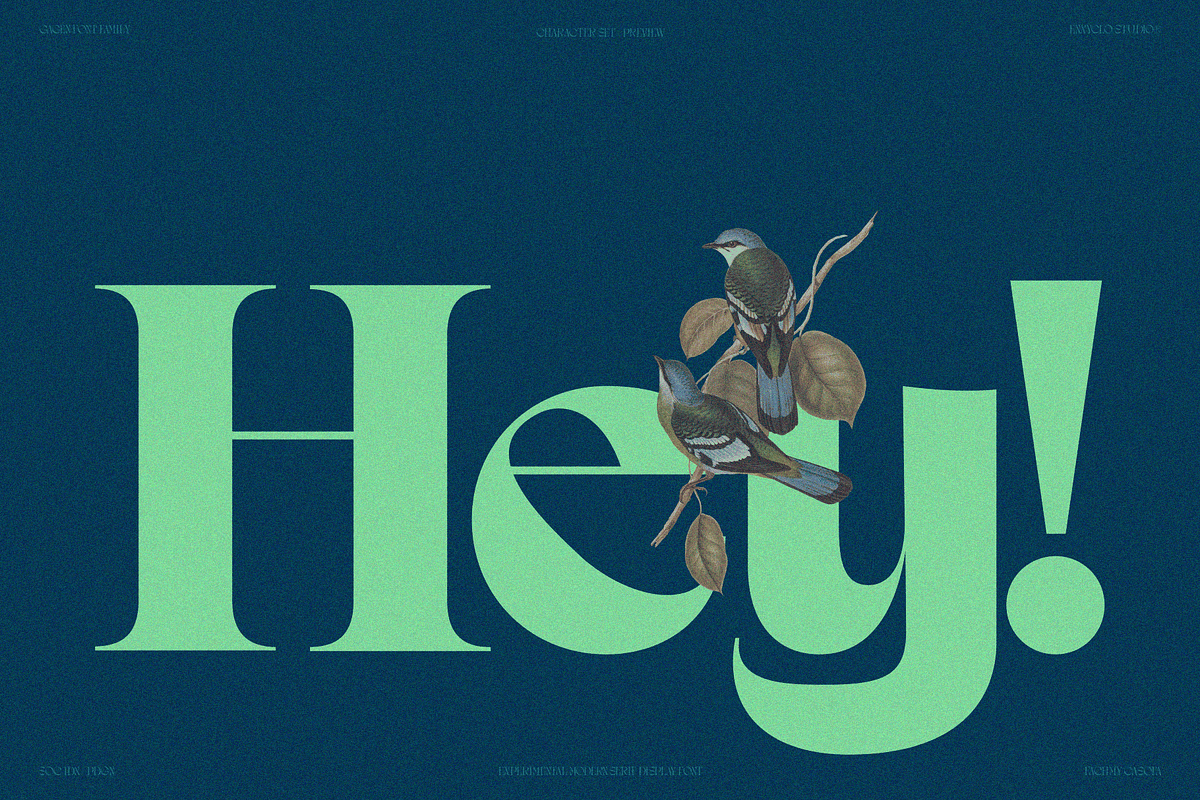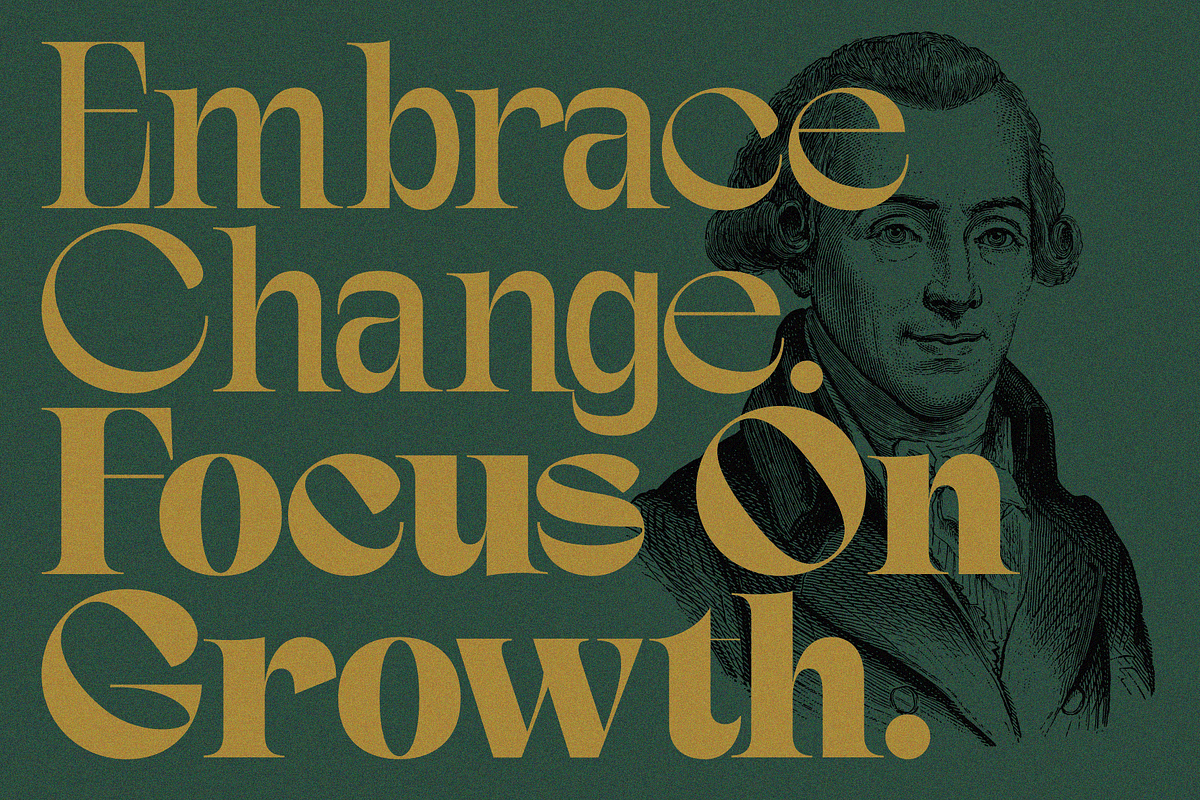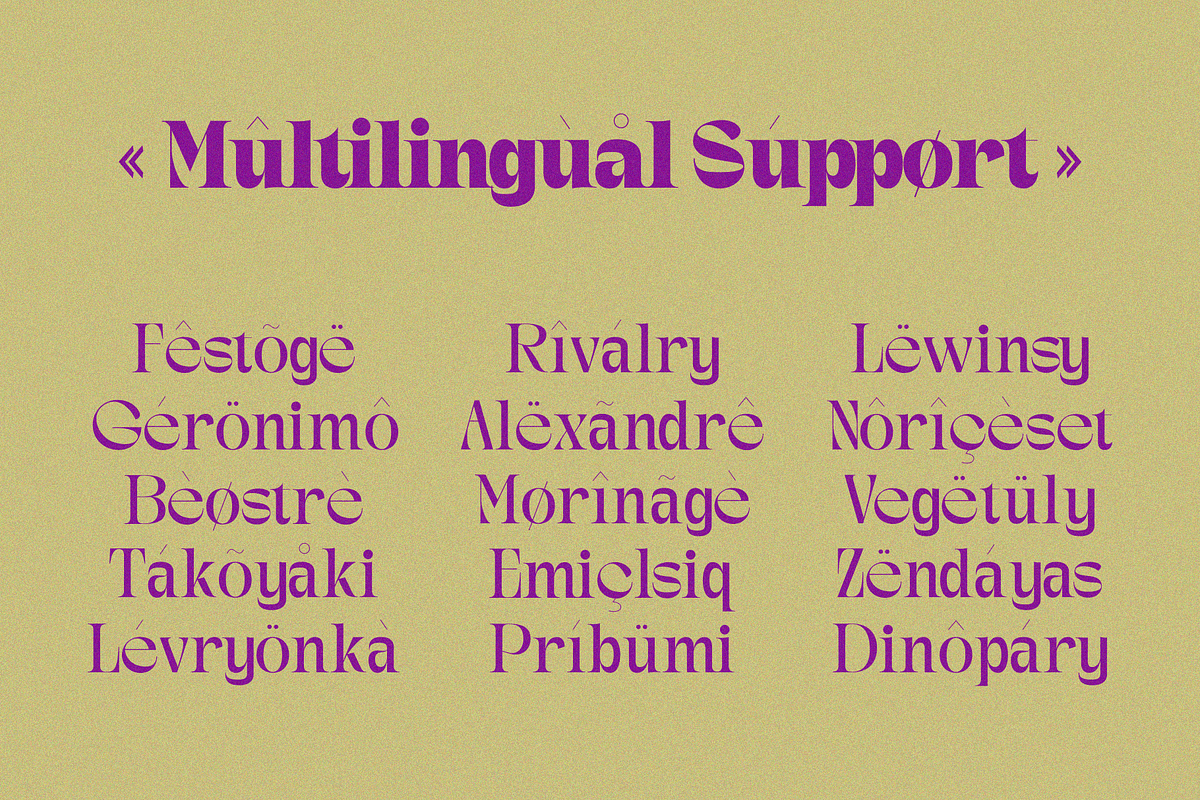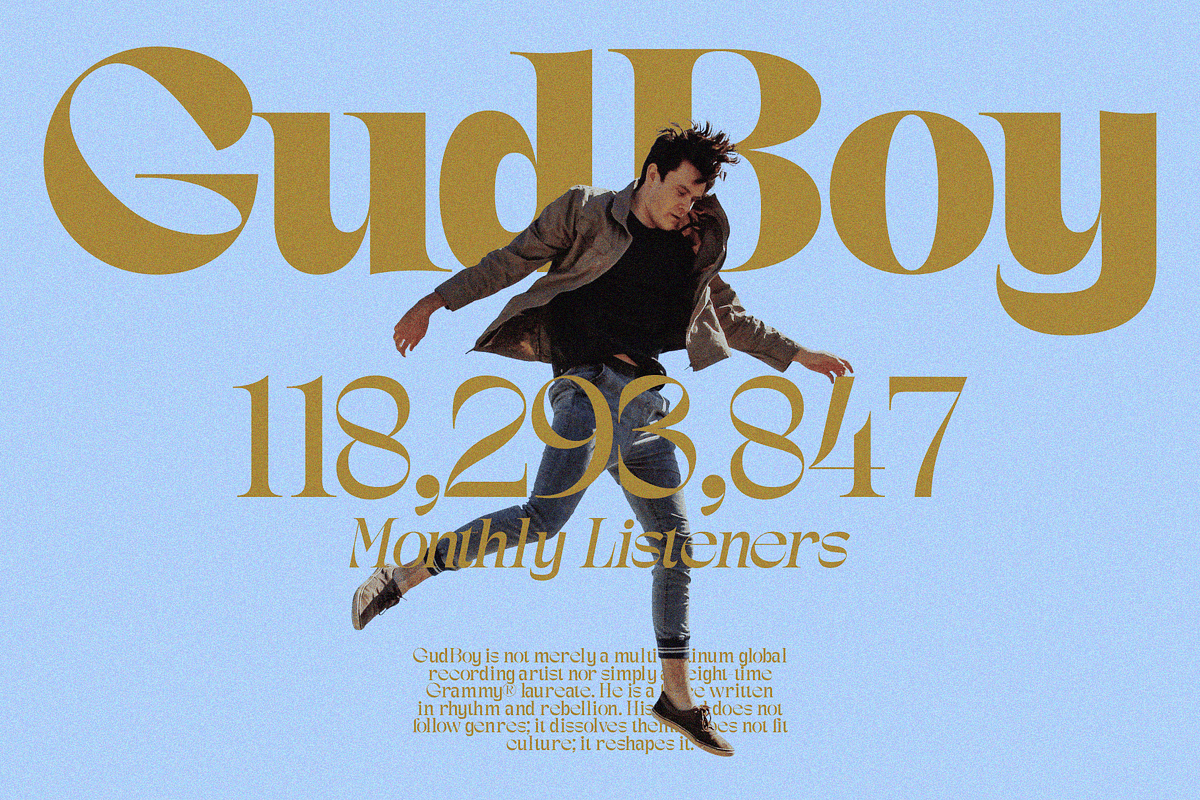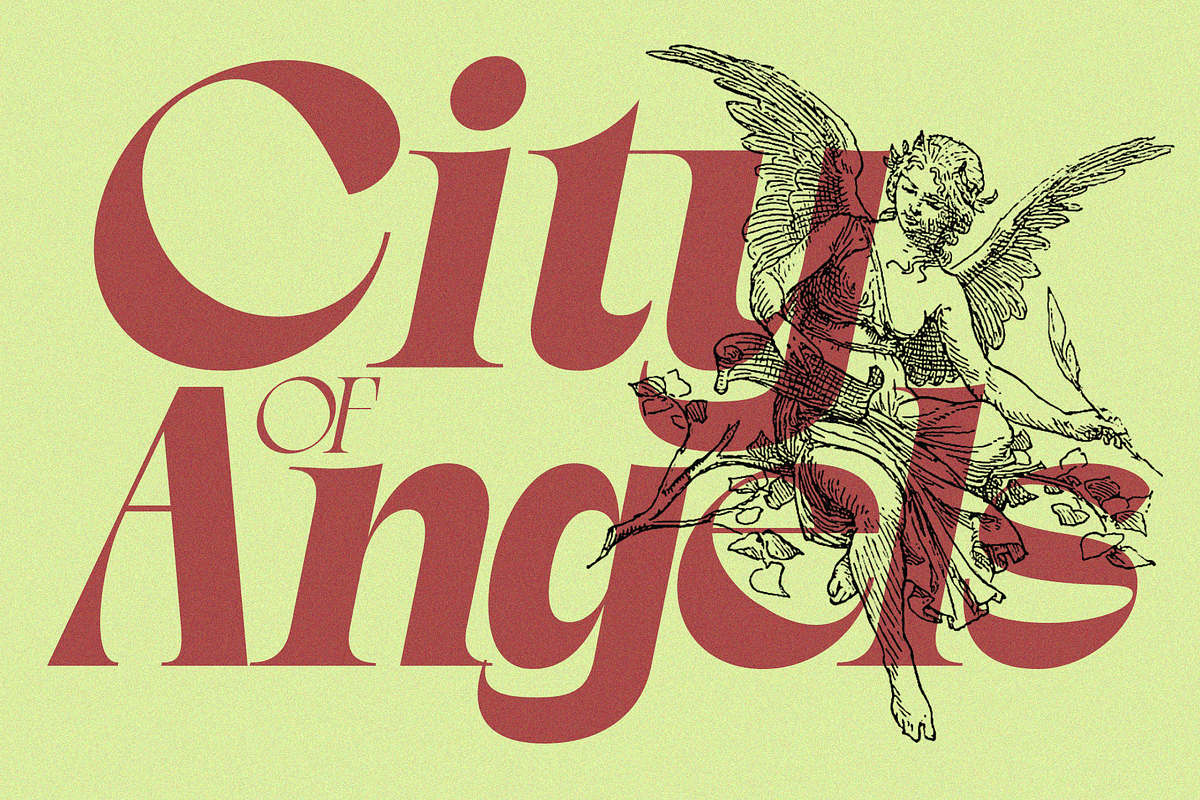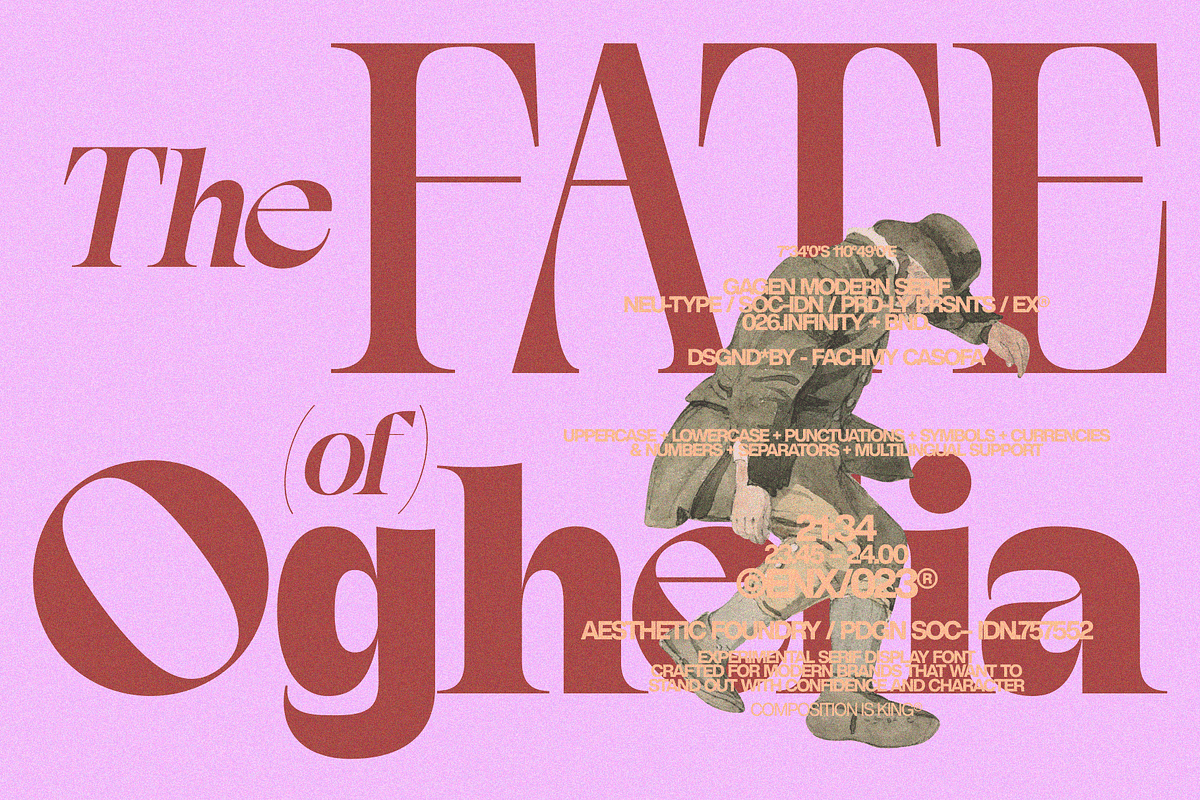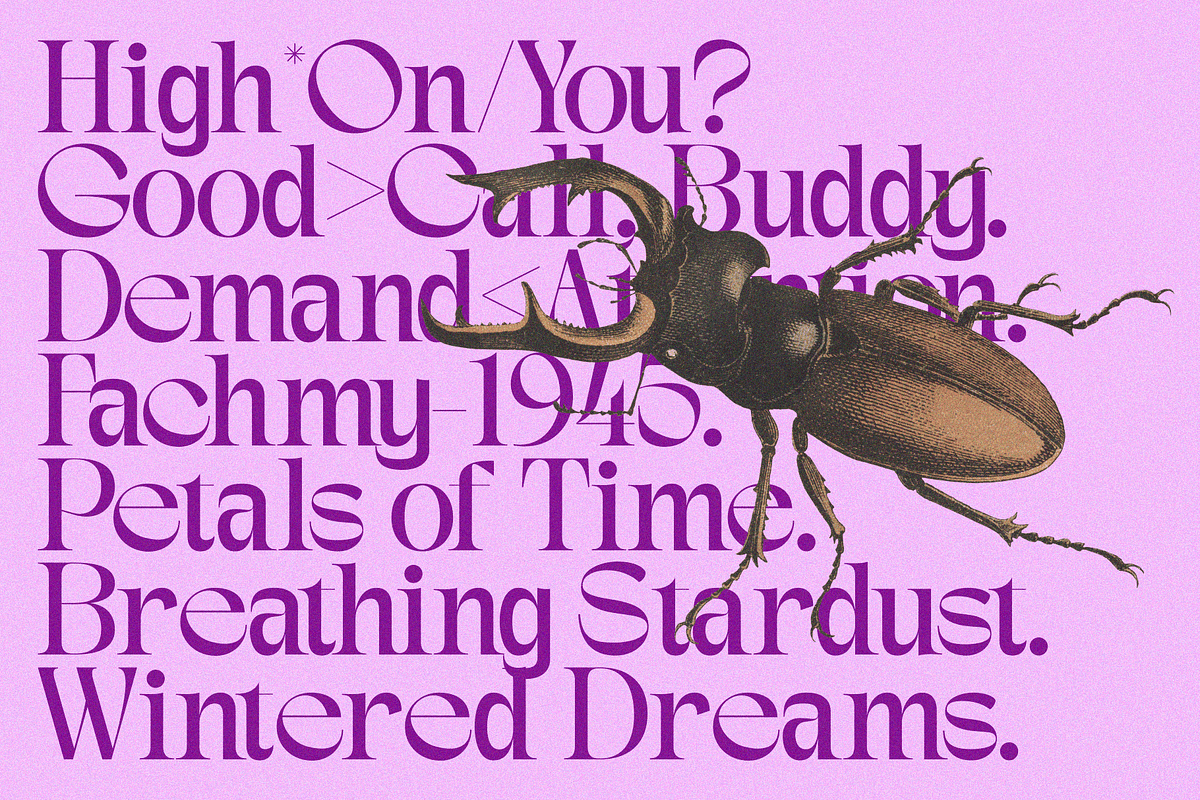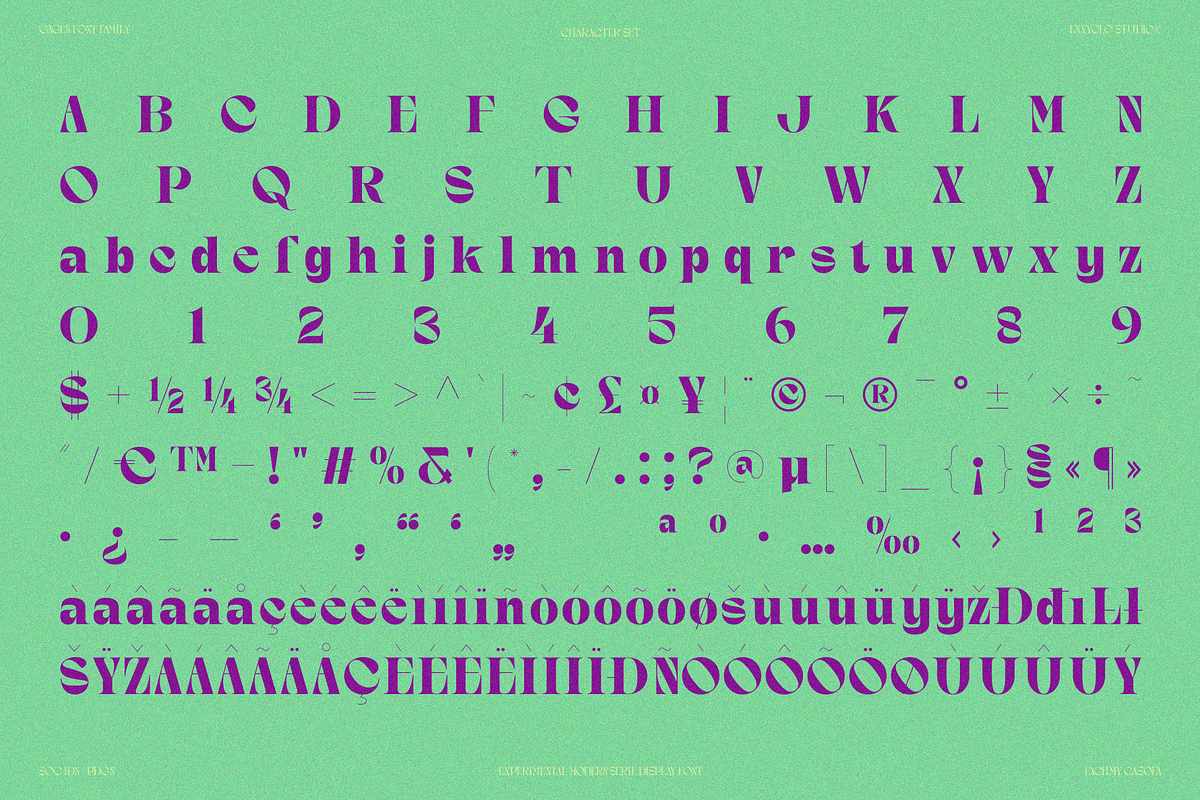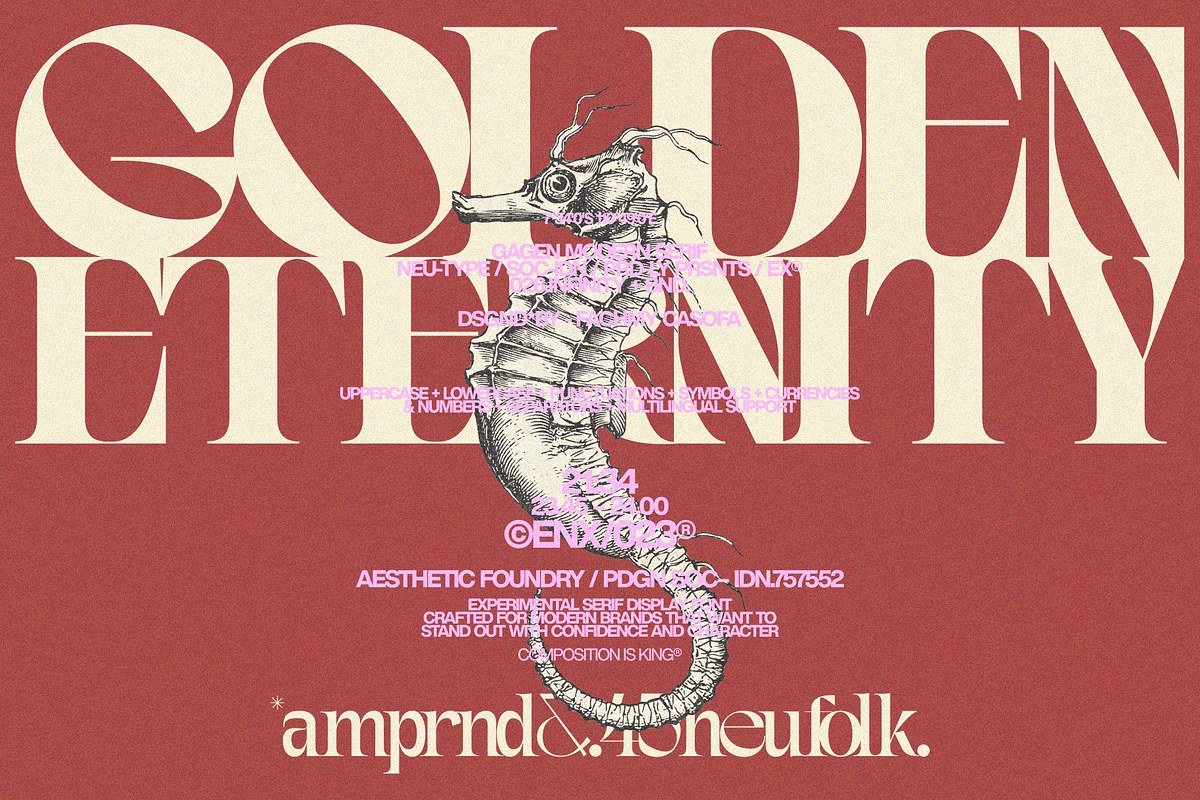
GAGEN — Modern Serif Font Family
GAGEN is a modern serif font family crafted for brands that demand elegance, clarity, and presence. Designed with a conceptual yet refined structure, GAGEN blends minimal precision with luxurious character—creating a typeface that feels both contemporary and timeless.
Available in 5 weights: Light, Regular, Medium, Semi Bold, and Bold, GAGEN offers full flexibility for sophisticated visual systems. From delicate headlines to bold logotypes, each weight maintains a clean silhouette, balanced contrast, and graceful serif details that evoke a rich, premium aesthetic.
This font is perfect for luxury branding across fashion, beauty, skincare, cosmetic, and boutique industries. Its elegant ligatures and carefully designed letterforms enhance every logo, logotype, and brand identity with a lavish yet modern tone. Whether used for glamorous poster designs or refined packaging, GAGEN delivers a luxurious presence that feels confident, stylish, and high-end.
GAGEN is more than a serif font—it’s a statement of premium taste, modern glamour, and creative excellence.
FEATURE
5 Weights: Light, Regular, Medium, Semi Bold & Bold
Slanted Version Available
Uppercase & Lowercase Letters
Punctuation Marks
Symbols & Special Characters
Currency Symbols
PERFECT FOR
Luxury Logo & Logotype
Fashion & Boutique Branding
Beauty & Skincare Packaging
Cosmetic Brand Identity
Premium Editorial & Headlines
Modern Poster Design
Elegant Visual Branding Systems